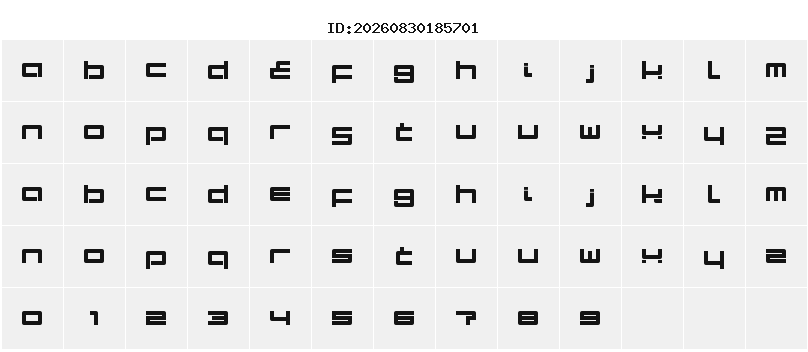
Terminal LDR Preview
• Font Name: Terminal LDR
• Font ID: FontStruct Terminal LDR
• Full Font Name: Terminal LDR Regular
• PostScript Name: Terminal-LDR
• Designer: Michał “Neoqueto” Nowak
• Description: ‚ÄúTerminal LDR‚Äù was built with FontStruct ‚ÄúTerminal LDR‚Äù is based on ‚ÄúProto LDR‚Äù by ‚ÄúMichał “Neoqueto” Nowak‚Äù (http://fontstruct.com/fontstructors/neoqueto), which is based on ‚ÄúSampa LDR‚Äù by ‚ÄúMichał “Neoqueto” Nowak‚Äù (http://fontstruct.com/fontstructors/neoqueto)
About Terminal LDR.ttf
Terminal LDR.ttf is a modern, elegant sans-serif font designed for ultimate readability and visual harmony. Perfect for branding, headlines, web design, and print materials.